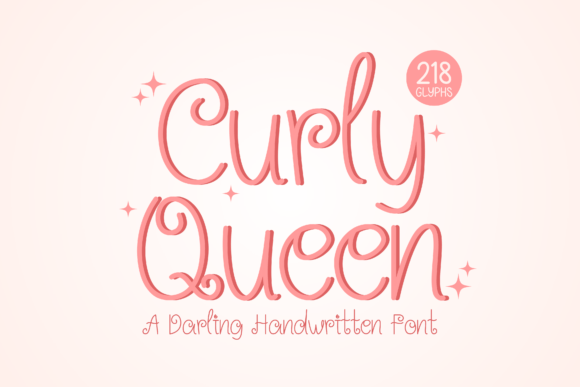
Add a Touch of Charm and Magic to Your Designs with Curly Queen Font
Are you looking for a font that can add a dash of personality and whimsy to your creative projects? Look no further than Curly Queen, a hand-lettered font that is sure to bring a smile to your face. With its playful curves and delightful style, Curly Queen is the perfect choice for designers and crafters who want to add a fun and friendly feel to their work.
What is Curly Queen Font?
Curly Queen is a unique and charming hand-lettered font that is designed to add a touch of magic to your designs. Its playful curves and swirling lines give it a distinctive look that is sure to stand out from the crowd. Whether you’re crafting invitations, designing cute prints, or creating standout social media graphics, Curly Queen is the perfect choice for adding a personal touch to your work.
Key Features of Curly Queen Font
• Hand-lettered design: Curly Queen is a carefully crafted hand-lettered font that is designed to look like it was written with love and care.
• Playful curves: The font features playful curves and swirling lines that give it a whimsical and delightful feel.
• Delightful style: Curly Queen has a charming and friendly style that is perfect for adding a personal touch to your designs.
Uses for Curly Queen Font
Curly Queen is a versatile font that can be used for a wide range of creative projects. Here are just a few ideas to get you started:
• Invitations: Add a touch of whimsy and charm to your invitations with Curly Queen.
• Cute prints: Use Curly Queen to create adorable prints that are perfect for nursery decor, kids’ parties, and more.
• Social media graphics: Stand out on social media with eye-catching graphics featuring Curly Queen.
• Stationery: Add a personal touch to your stationery with Curly Queen.
• Branding: Use Curly Queen to create a unique and memorable brand identity.
Why Choose Curly Queen Font?
There are many fonts to choose from, but Curly Queen stands out from the crowd. Here are just a few reasons why:
• Unique design: Curly Queen has a distinctive design that is sure to stand out from the crowd.
• Easy to read: Despite its playful curves, Curly Queen is easy to read and understand.
• Versatile: Curly Queen can be used for a wide range of creative projects.
• High-quality: Curly Queen is a high-quality font that is designed to look great on any device.
Tips for Using Curly Queen Font
Here are a few tips for getting the most out of Curly Queen:
• Use it sparingly: Curly Queen is a bold font, so use it sparingly to add emphasis to your designs.
• Pair it with other fonts: Curly Queen pairs well with other fonts, so don’t be afraid to experiment with different combinations.
• Experiment with colors: Curly Queen looks great in a variety of colors, so don’t be afraid to get creative.
Curly Queen is a charming and whimsical hand-lettered font that is perfect for adding a touch of personality and magic to your creative projects. With its playful curves and delightful style, Curly Queen is sure to bring a smile to your face. Whether you’re a designer or crafter, Curly Queen is a great choice for anyone looking to add a fun and friendly feel to their work. So why wait? Download Curly Queen today and start adding a touch of charm and magic to your designs!